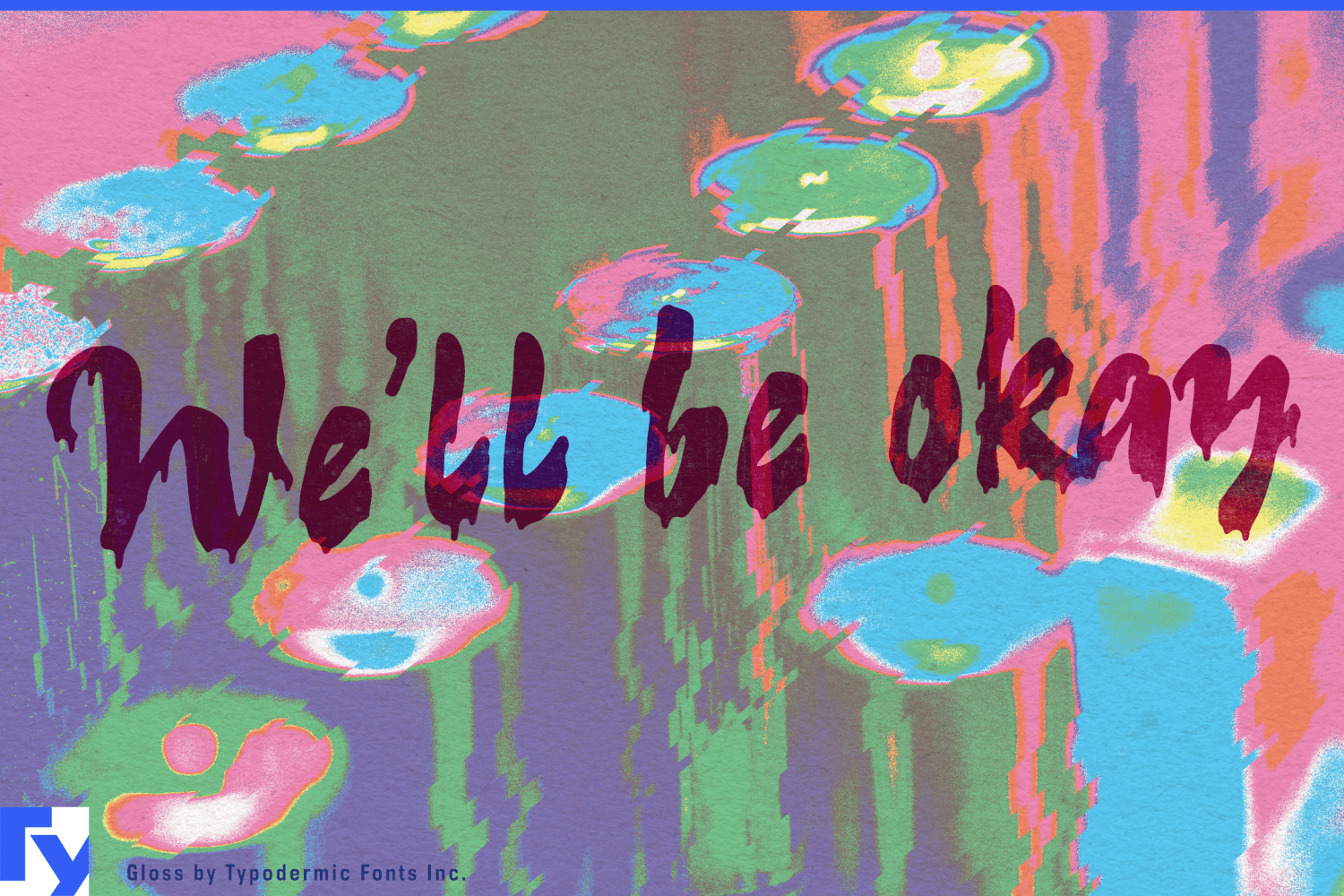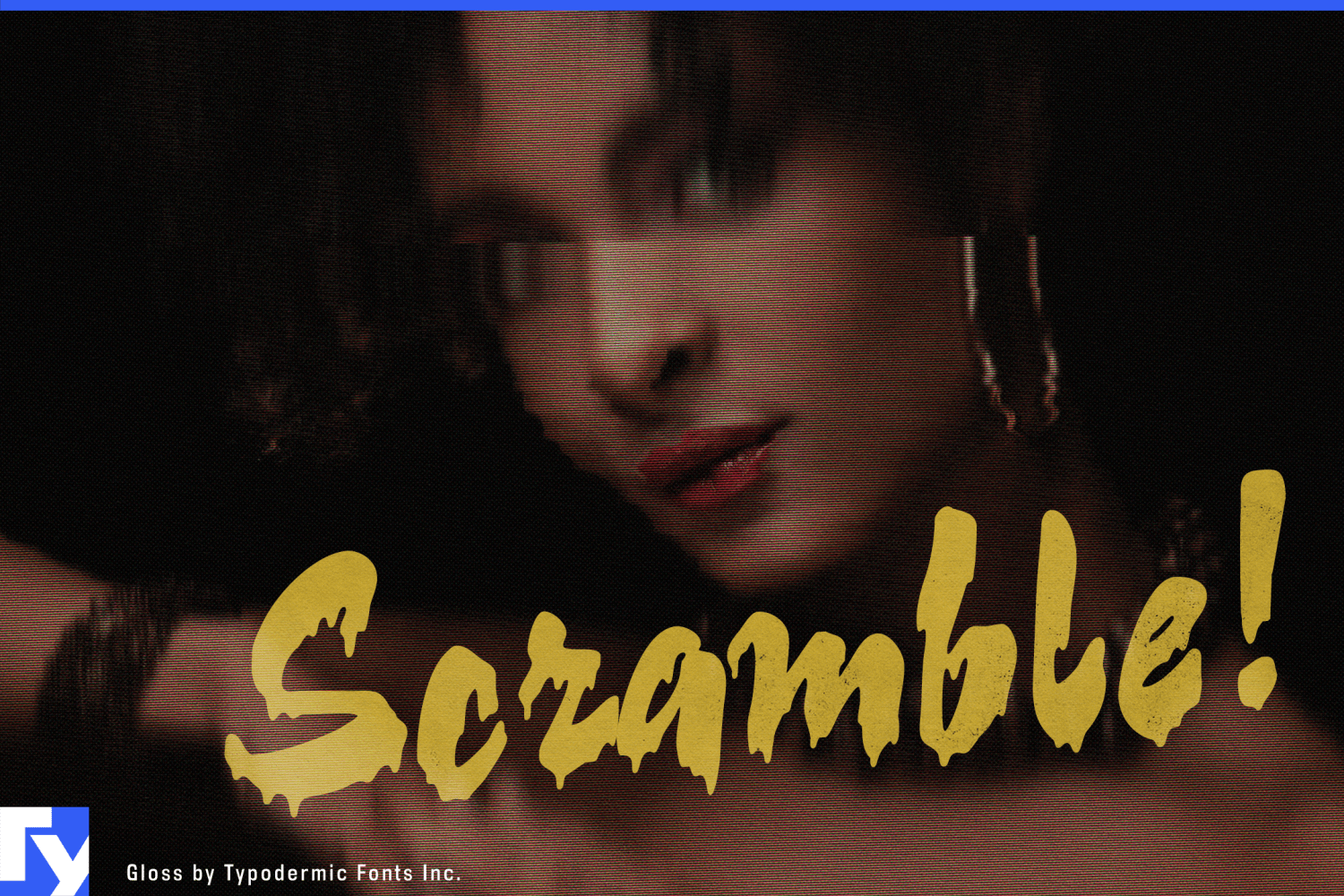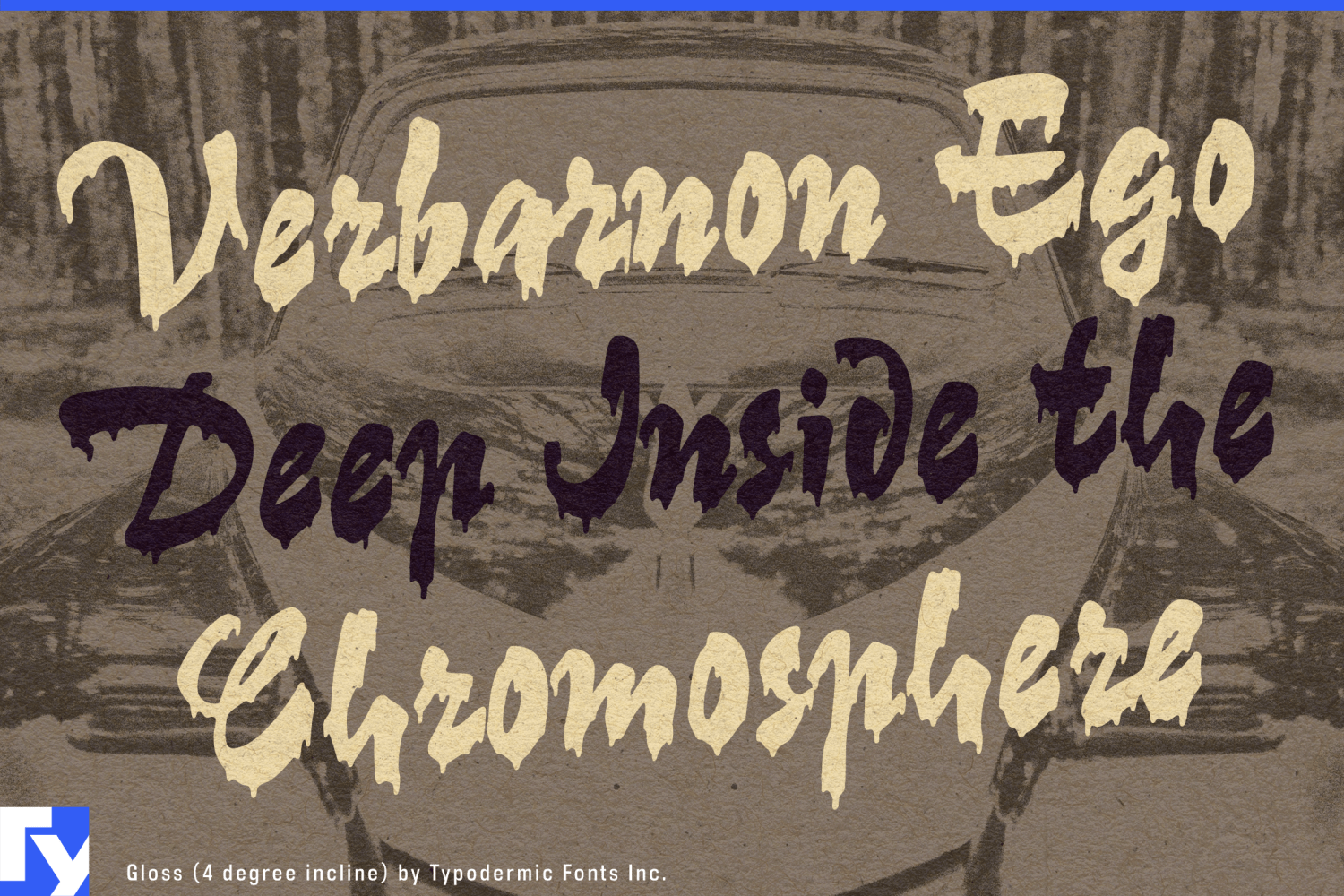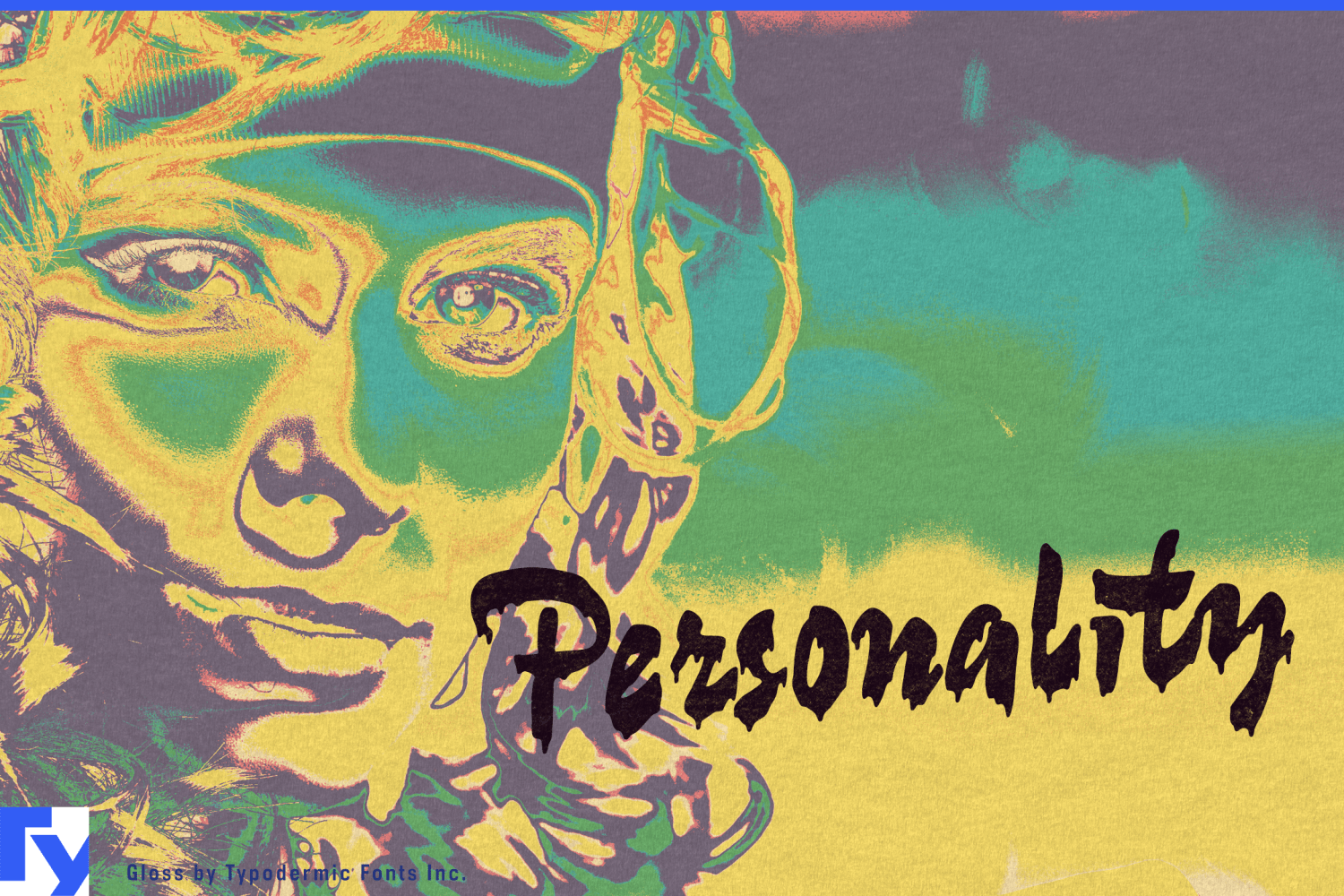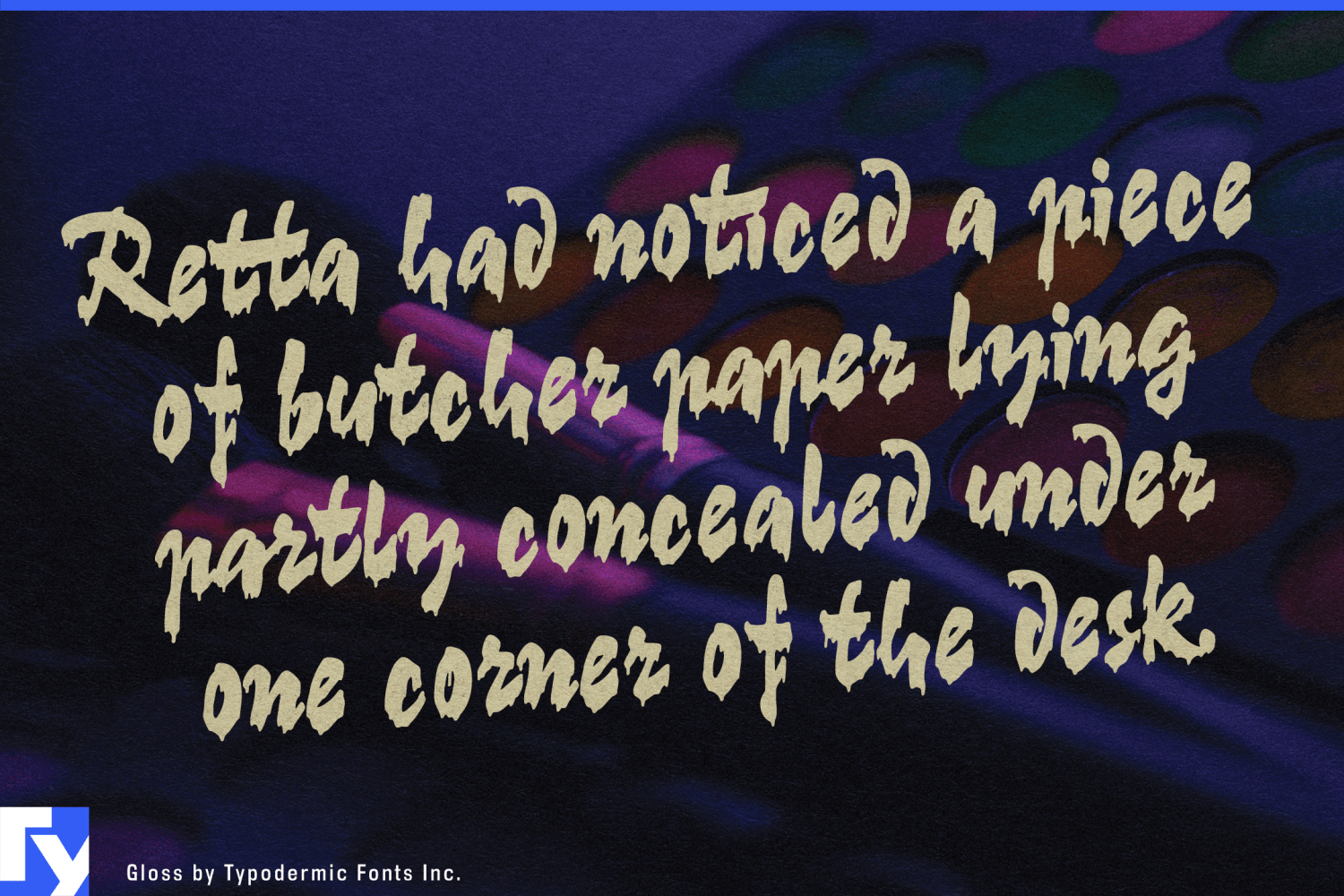
Gloss
Font Family by Typodermic
Gloss is for projects that need glamour with something wrong with it.
Its foundation is a sweeping mid-century display script, but the finish has been deliberately spoiled. Ragged edges, irregular paint drips and shifting connections turn polished sign lettering into something smeared, wet and unruly. Gloss occupies an unusual space: feminine without becoming sweet, rebellious without borrowing the hard visual language of hardcore punk, and flashy without looking conventionally luxurious.
That combination makes it especially useful for youth-oriented beauty. Hair-color collections, nail lacquer, press-on nails, false lashes, lip gloss and high-impact cosmetics can treat the lettering almost like part of the product; the drips suggest dye, polish, gloss or pigment that has escaped its container. Collection names, shade campaigns and limited-edition packaging can lean into the mess rather than hide it.
Gloss also fits bratty teen fashion and accessories: platform footwear, novelty handbags, fashion jewelry, sunglasses, hair accessories and trash-glam capsule collections that need something more insolent than an ordinary script but less aggressive than distressed block lettering. It can carry campaign headlines, shoebox graphics, hangtags and storefront promotions with the swagger of sign-painter forms pushed into smeared-eyeliner territory.
Fashion dolls, collectible characters and beauty tie-ins are another natural fit, particularly when the persona is theatrical, excessive or knowingly bad-behaved rather than cute. Its punk connection belongs on the glam and post-punk side: dyed hair, thrift-store glamour, plastic jewelry and improvised fashion rather than stencils and photocopied manifestos. That same language can work for girl-band graphics, drag and burlesque promotions, trash-glam nightlife and entertainment built around rebellious young women.
The drips also give Gloss a literal role in custom paint and lacquer. Motorcycle tanks, helmets, custom vehicle graphics, paint-marker campaigns and specialty coatings can make the lettering look freshly applied; tilting the composition strengthens the effect by letting the drips appear to obey gravity.
Gloss is deliberately not an all-purpose script. It works best when beauty, mess and showmanship need to occupy the same word.